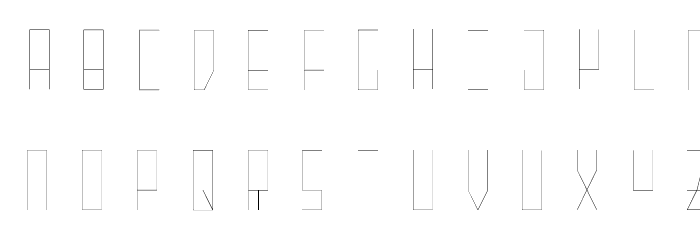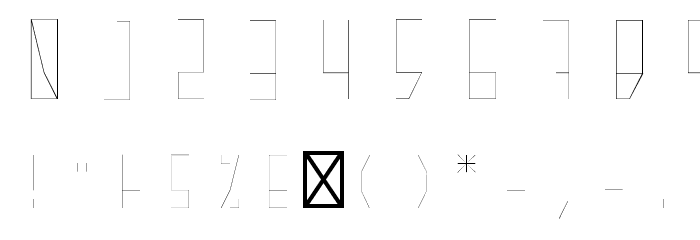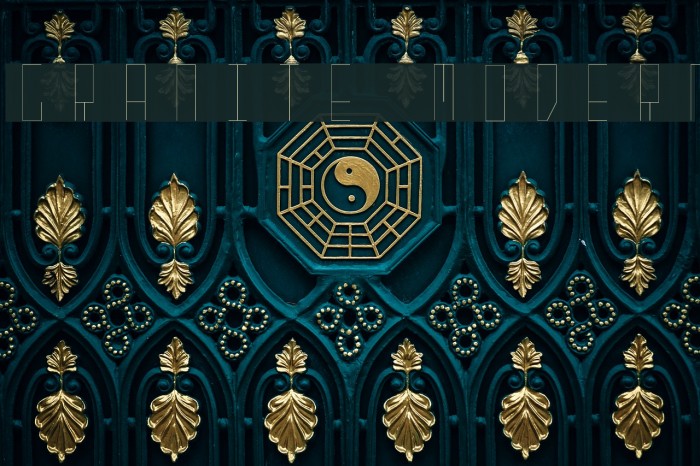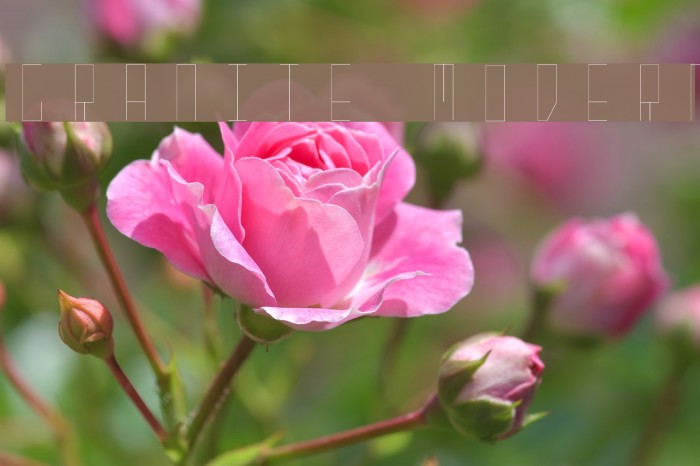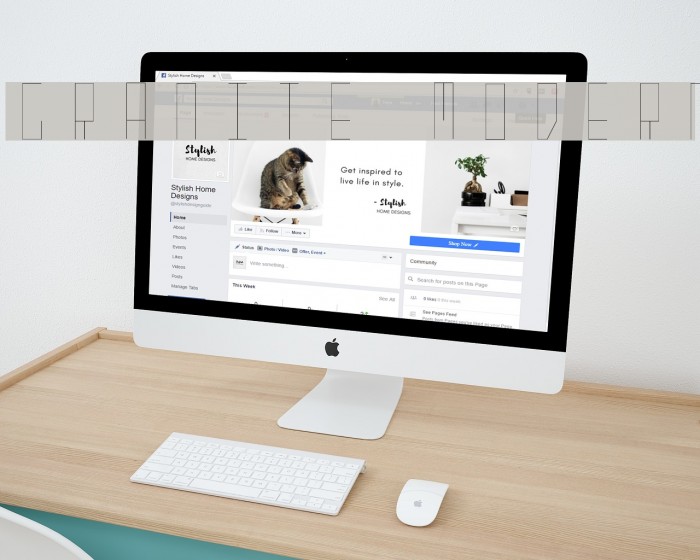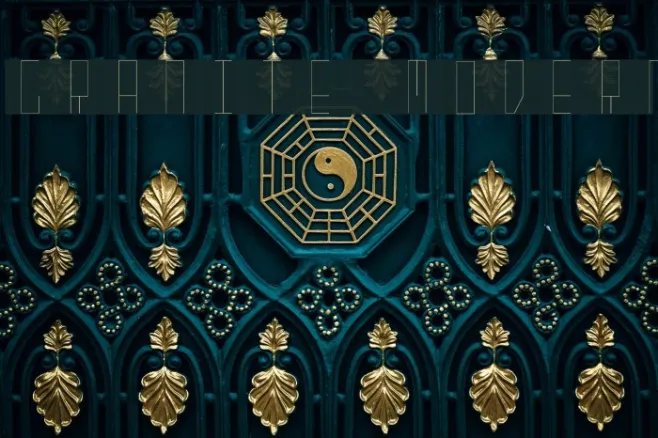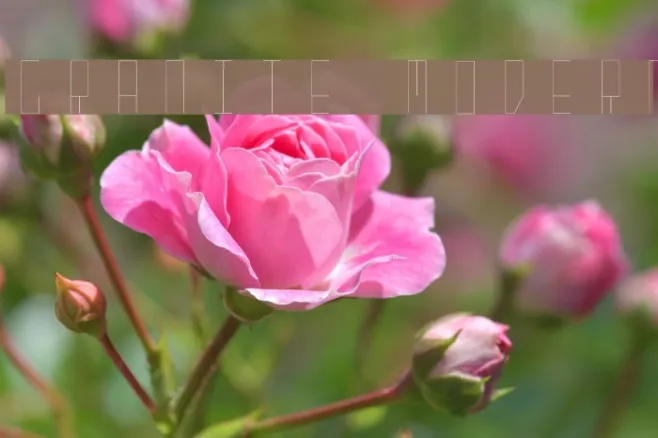
Granite Modern Font
This font features a modern, geometric design with a minimalist aesthetic. Each character is constructed with thin, precise lines, creating a sense of elegance and sophistication. The uppercase letters are uniform in height, while the lowercase letters maintain a consistent style that complements the uppercase. Numbers and special characters follow the same geometric principles, ensuring a cohesive look across all text. The font's clean lines and open spaces make it highly legible, even at smaller sizes. Its unique style is both contemporary and versatile, suitable for a wide range of design applications.
A modern, geometric font with thin lines and a minimalist design.
- Proposed Projects: Ideal for branding, editorial design, digital interfaces, and modern art projects.
- Category: Modern
- Weight: Light
- Use Case: Headlines, Logos, Digital interfaces